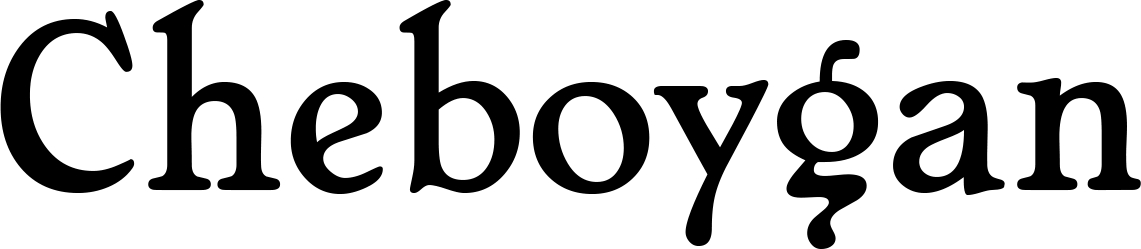
Cheboygan Font
Sometimes projects like printed texts, magazine titles, fashion logos, decorative headlines, and wedding cards require some sophistication and formality. You can create that vibe easily with a serif font like Cheboygan which would be a great choice for the job.
This font comes with an extraordinary collection of characters that contains both the uppercase and lowercase of the alphabet, the numbers, and the punctuation marks.